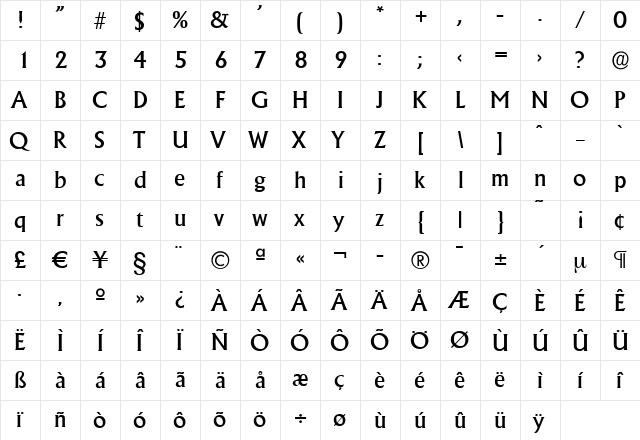
JacobBecker-Medium Regular
Design Context for JacobBecker-Medium Typeface
JacobBecker-Medium offers clean, dependable letterforms without strong stylistic allegiance, making it a practical choice for designers who need flexibility.